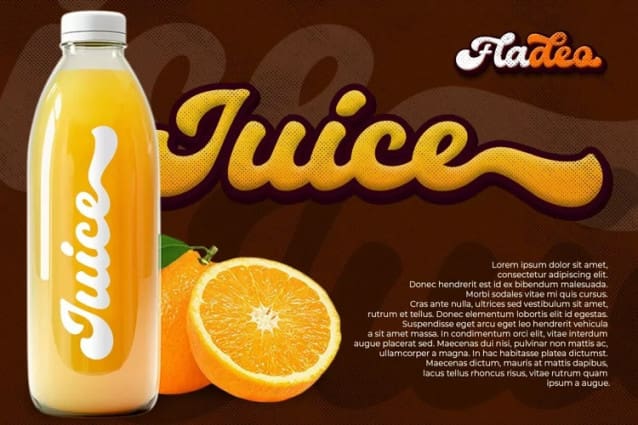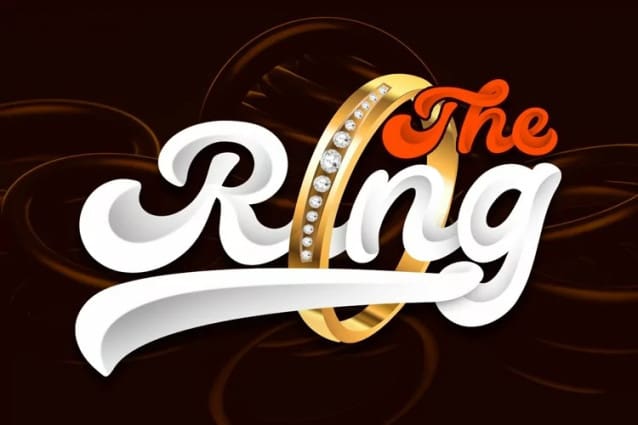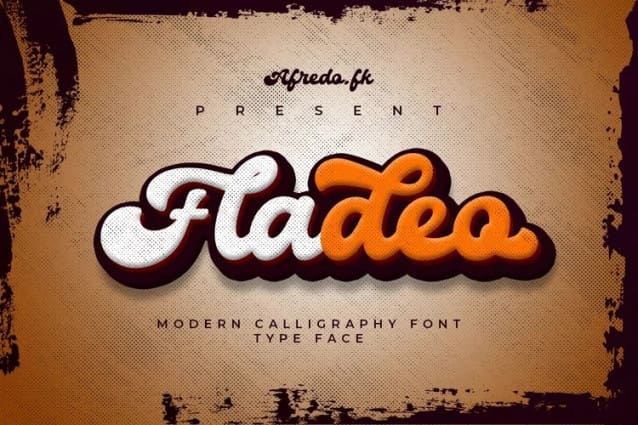
Fladeo Script Font
Fladeo Script Font, a new fresh & modern Elegant Serif font decorative characters and a dancing baseline! So beautiful on branding materials, business cards, quotes, posters, logo and more!!